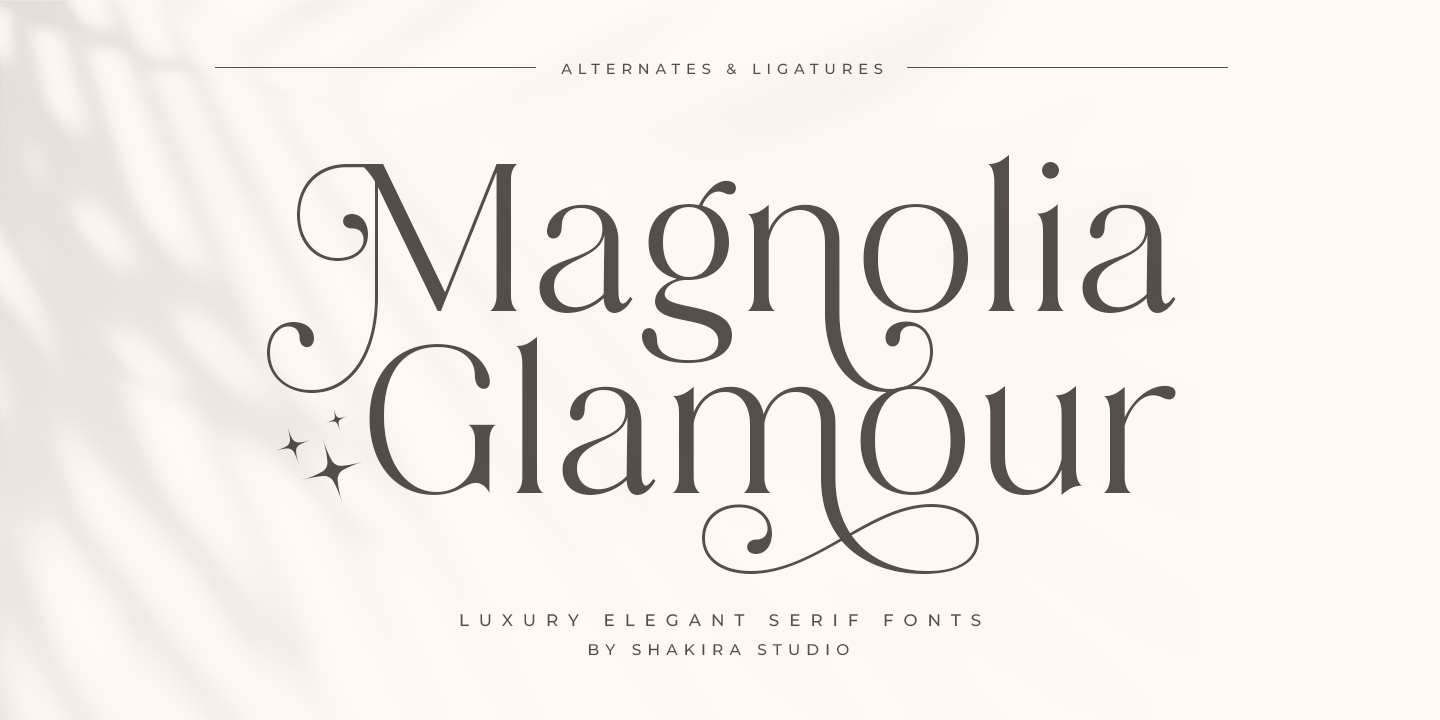
Magnolia Glamour Font is perfect for luxury fashion branding, high-end beauty products, elegant wedding invitations, boutique hotel signage, premium cosmetics packaging, upscale jewelry marketing, sophisticated event promotions, glamorous magazine layouts, and exclusive lifestyle brands that require refined typography with sophisticated glamour appeal.
What makes Magnolia Glamour Font exciting is its exquisite elegance that captures the essence of luxury and refined sophistication, graceful letterforms that convey prestige and exclusivity in premium market applications, distinctive glamorous character that instantly communicates high-end quality and luxury positioning, and its ability to elevate brand perception through sophisticated typographic excellence.
The Magnolia Glamour Font family includes regular and bold weights for comprehensive luxury branding hierarchy, elegant italic styles for sophisticated emphasis and dynamic text flow, decorative alternates that enhance the font's glamorous character, and extended character sets supporting international luxury market requirements and premium branding applications.
Luxury brands and high-end marketers consistently choose Magnolia Glamour Font Free Download for its exceptional ability to communicate exclusivity and sophisticated glamour in premium market applications. This elegant typeface embodies the perfect balance of classic sophistication and contemporary luxury appeal, making it ideal for brands targeting discerning consumers who appreciate refined elegance and premium quality.
The font's sophisticated construction and glamorous appeal create immediate brand recognition while conveying the exclusivity and luxury positioning that premium consumers seek. Its distinctive character makes it particularly effective for brands wanting to establish luxury credentials and connect with affluent audiences who value sophisticated design and premium experiences.
Magnolia Glamour Font excels in luxury fashion branding, high-end beauty marketing, exclusive hospitality applications, and premium lifestyle communications where elegant typography directly impacts brand perception and luxury positioning. The font's glamorous nature makes it perfect for applications requiring luxury credibility and sophisticated appeal.
Whether you're designing luxury brand identities, creating premium marketing materials, developing exclusive event promotions, or working on high-end editorial layouts, this font delivers the sophisticated glamour needed for success in competitive luxury markets. Its elegant character ensures projects maintain luxury authenticity while appealing to contemporary affluent consumers.
The font's luxury sophistication, combined with its strong visual impact and proven effectiveness in premium branding applications, makes it an essential resource for luxury marketers, high-end designers, and brands seeking to communicate exclusivity and refined glamour in today's demanding luxury marketplace.